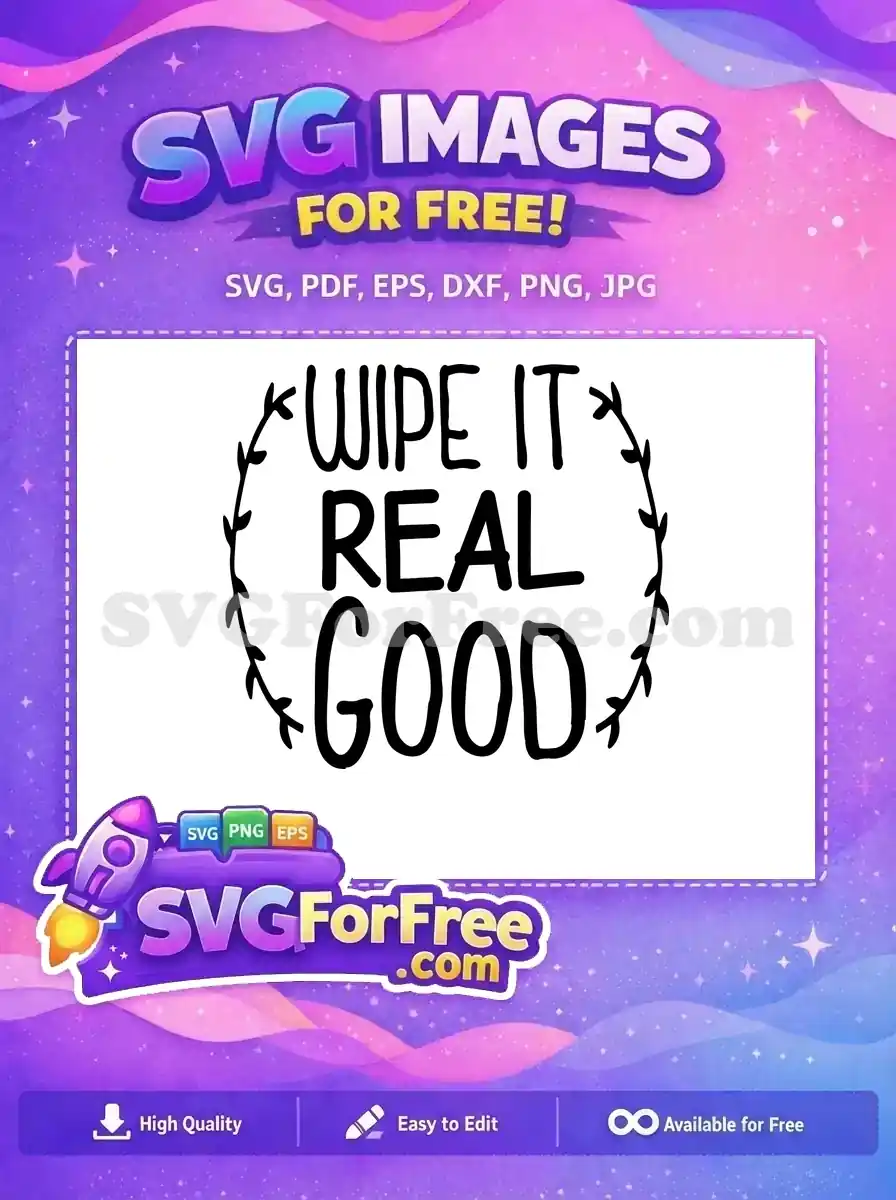
Free Black Hand-Drawn Font Free Leafy Border Bathroom Quote Free SVG – Instant Download
Get this free, fun ‘Wipe It Real Good’ SVG design, perfect for adding a humorous touch to your home decor or crafts. A delightful, free design.
Free Black Hand-Drawn Font Free Leafy Border Bathroom Quote Free SVG